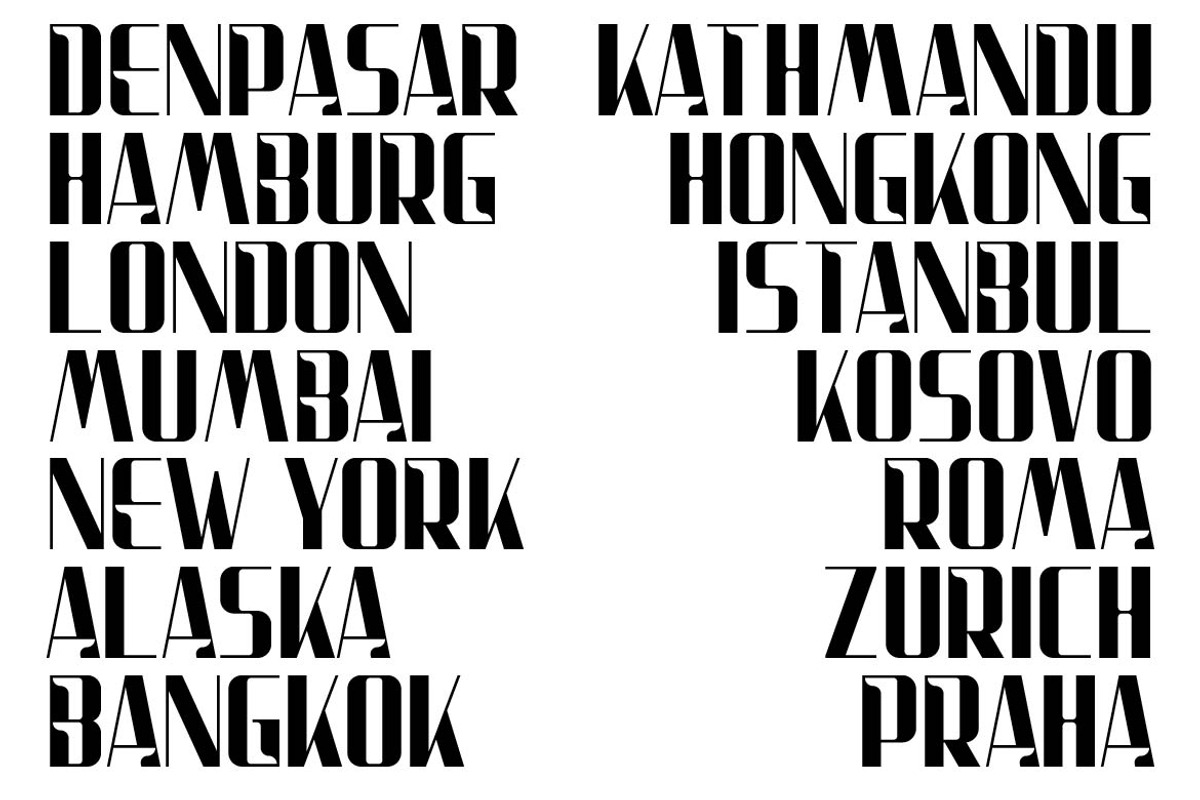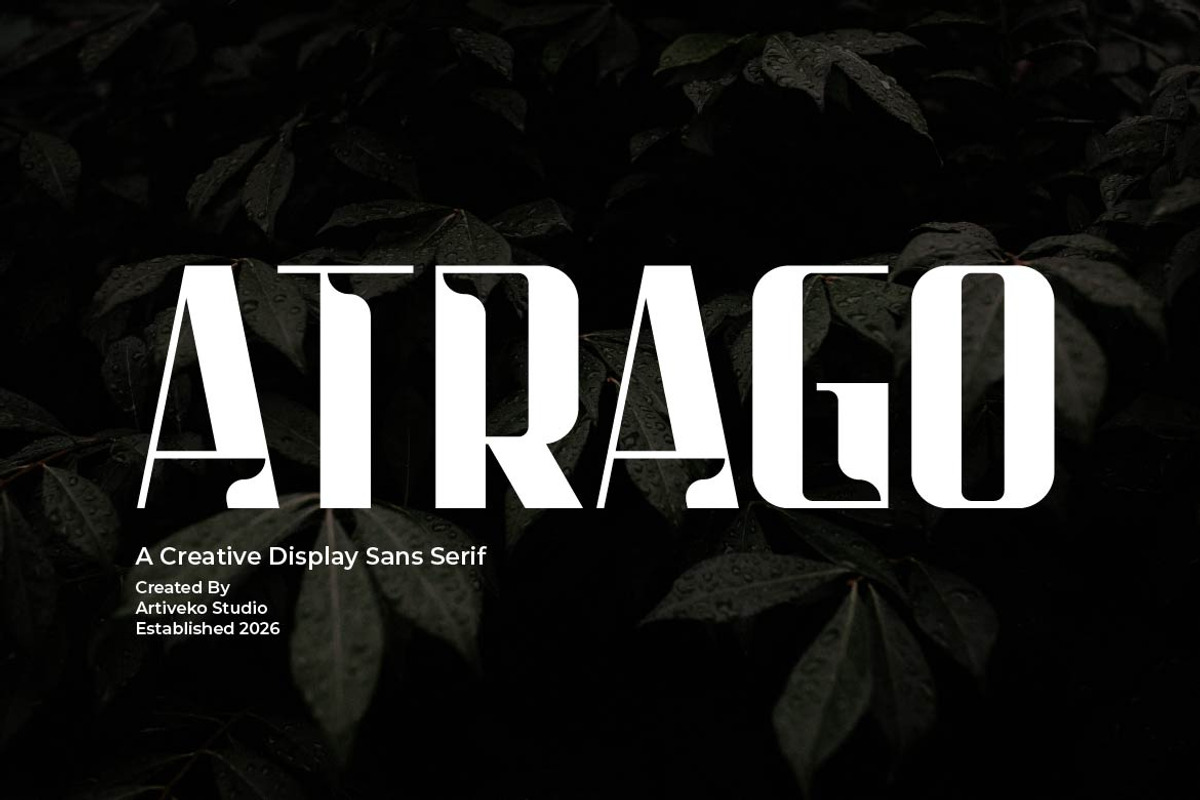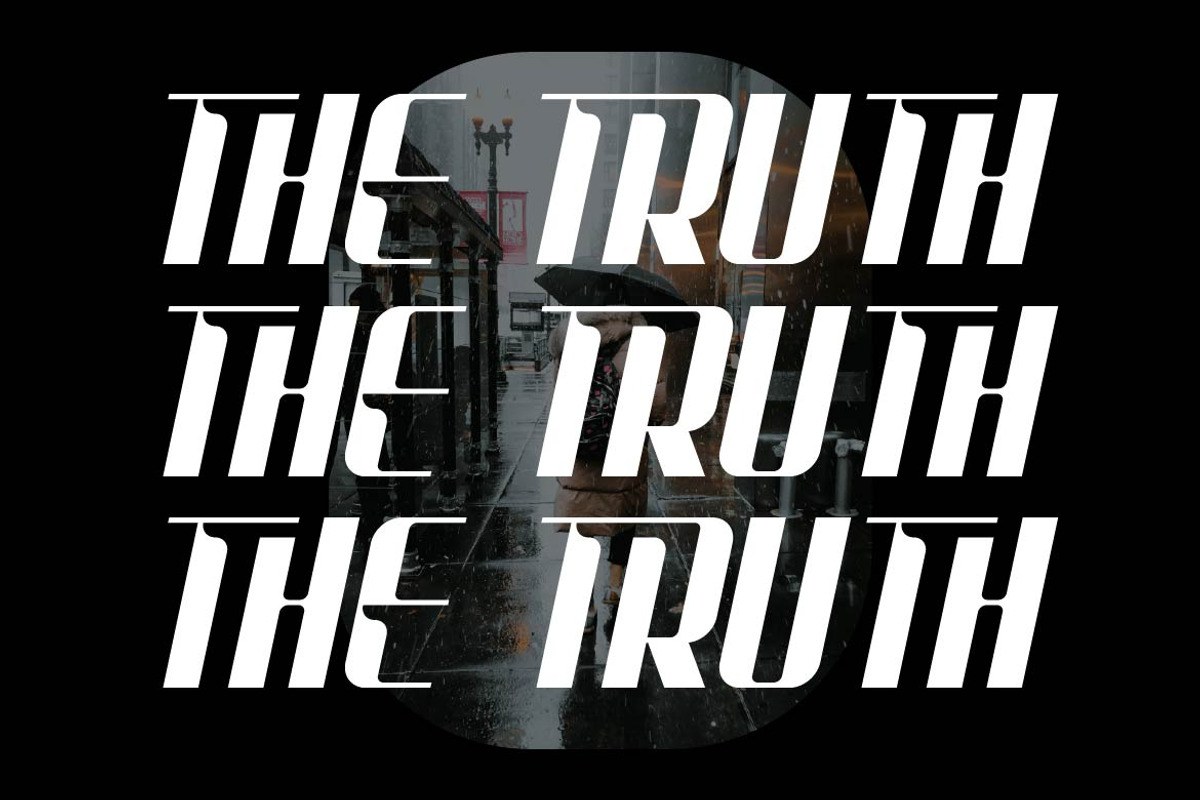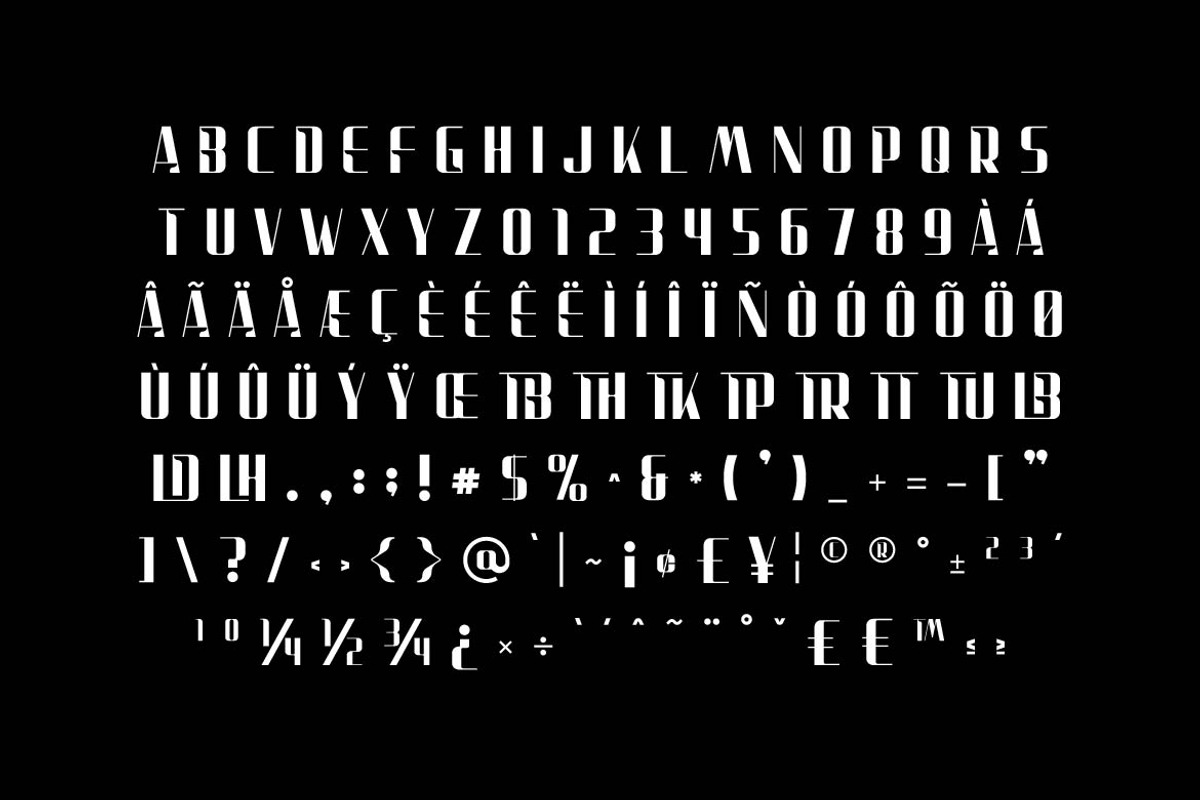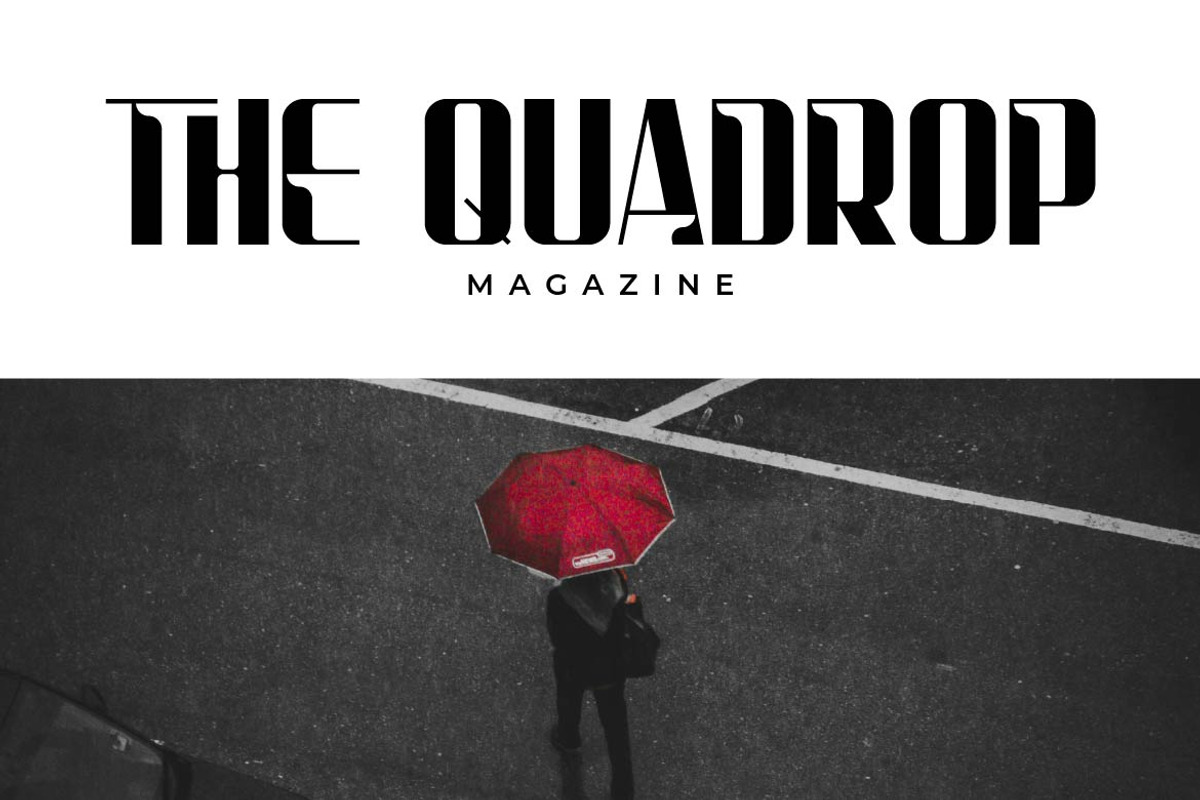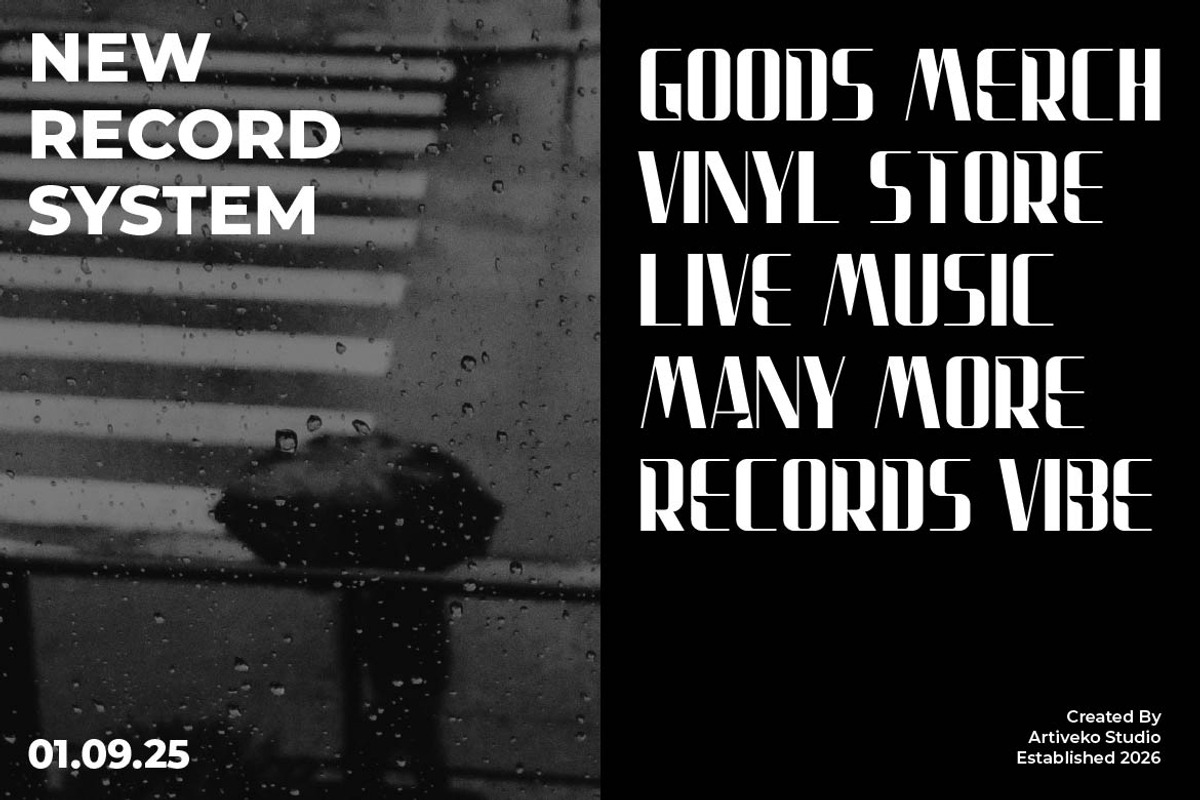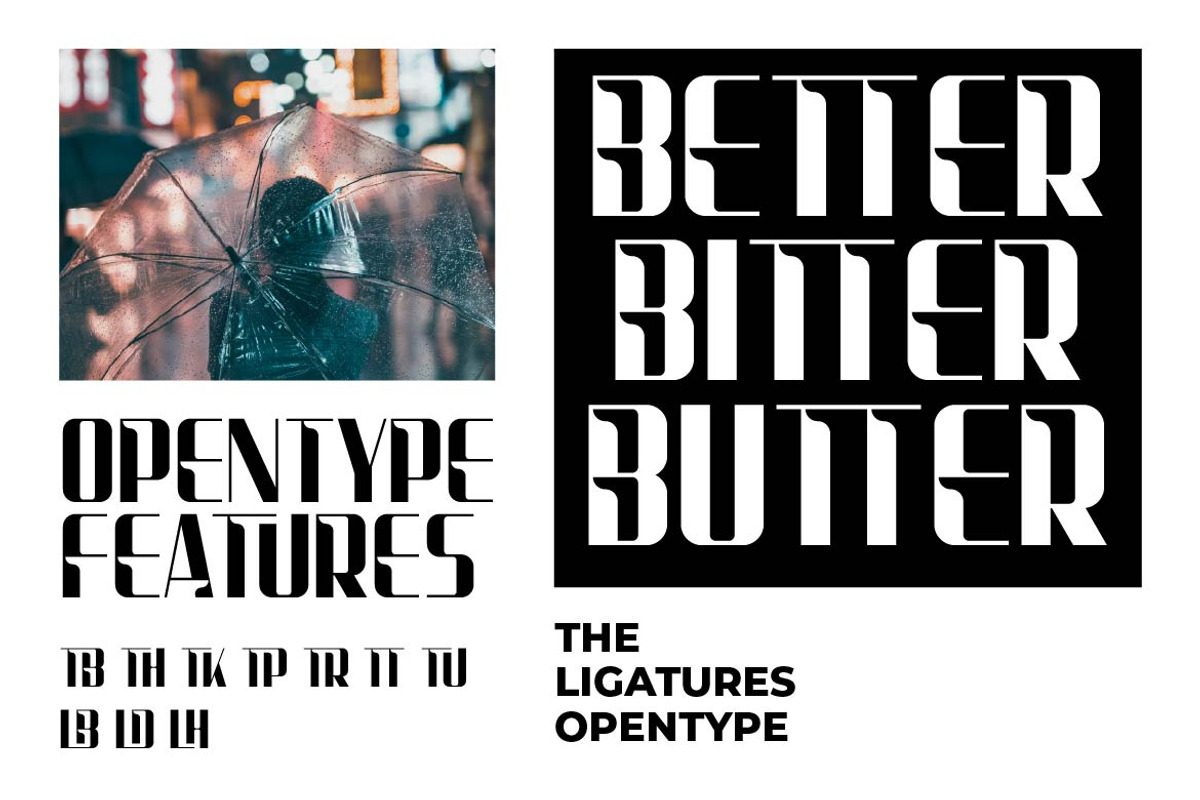
Atrago Creative Display Font
Atrago is a striking modern display font designed to deliver powerful visual presence with a clean contemporary aesthetic. With its bold strokes, sharp edges, and confident proportions, Atrago creates an instantly recognizable typographic voice that commands attention.